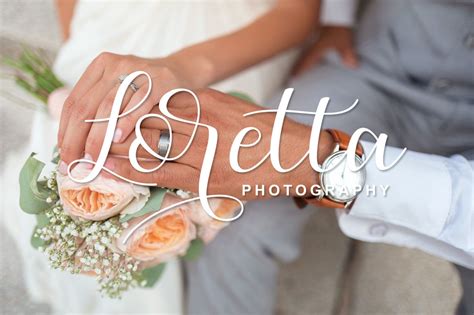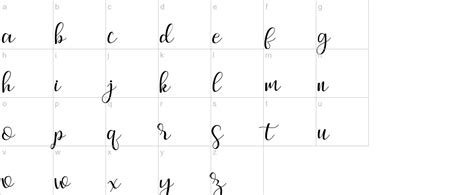
Download Marchy Script Font - Marchy script a new fresh & modern script with a handmade calligraphy style, decorative characters and a dancing baseline! Version 1.000 postscript font name:
Download free marchy script font by pointlab studio from fontsly.com. Marchy script a new fresh & modern script with a handmade calligraphy style, decorative characters and a dancing baseline! And this font has given pua unicode (specially coded fonts). Most script fonts have long ascenders and descenders, and this means they look too small when used at normal sizes on the web. Search results for 'marchy script' (free marchy script fonts). The marchy font comes in 3 versions Votes, rated based on results identification. This font is optimized in such details to be very readable as a web font, even when used as small as 16 pixels. The main advantage over other similar fonts is the lack of connections b. Marchy script font marchy script a new fresh & modern script with a handmade calligraphy style, decorative characters and a dancing baseline! This font is free for personal use. #font #type #fonts #elegant #script #serif #luxury. Browse fonts featured articles about.
Browse fonts featured articles about. Marchy script a new fresh & modern script with a handmade calligraphy style, decorative characters and a dancing baseline!
◄ go back to free fonts. Marchy script a new fresh & modern script with a handmade calligraphy style, decorative characters and a dancing baseline!
Version 1.000 postscript font name: So beautiful on invitation like greeting cards.
Version 1.000 postscript font name: Most script fonts have long ascenders and descenders, and this means they look too small when used at normal sizes on the web.
And this font has given pua unicode (specially coded fonts). Marchy script is a stunning handmade calligraphy style font created by pointlab.
So beautiful on invitation like greeting cards. This font is optimized in such details to be very readable as a web font, even when used as small as 16 pixels.